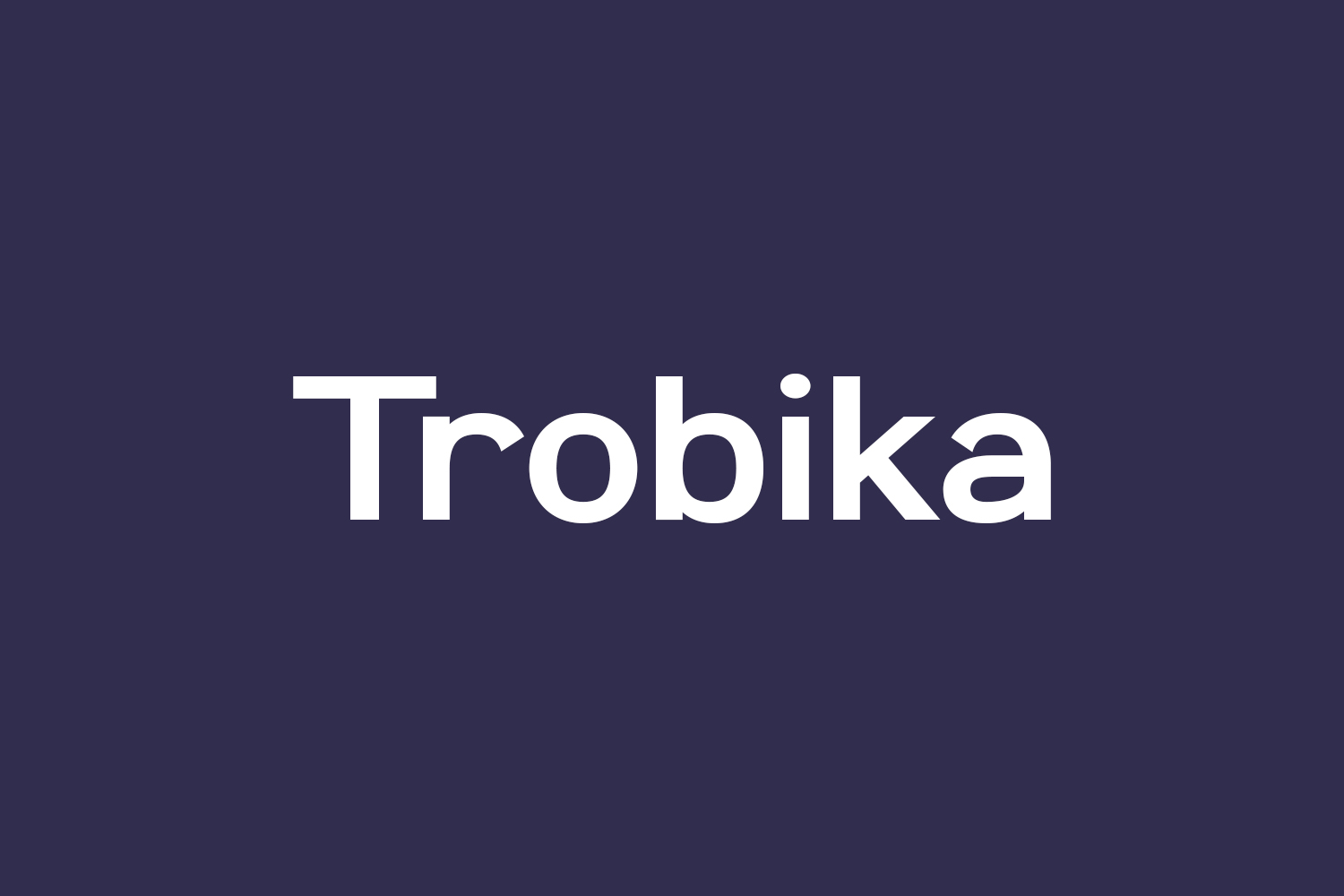
Discover the elegance of Trobika Free Font, a contemporary and sophisticated font ideal for elevating your design. Perfect for headings, logos, branding, magazines, product packaging, and invitations, Trobika’s clean lines and seamless curves infuse any project with refined style. Download the font for free if you need it for personal use or purchase the full version for commercial use.
Designed by BrandSemut